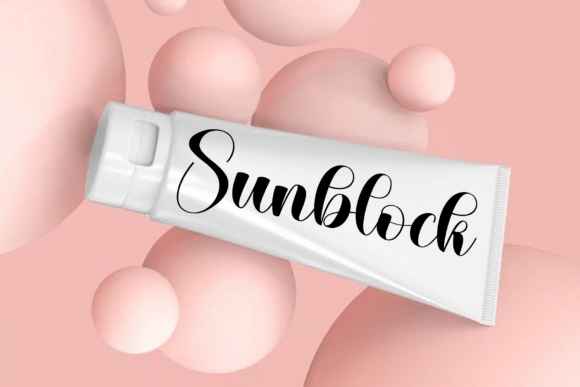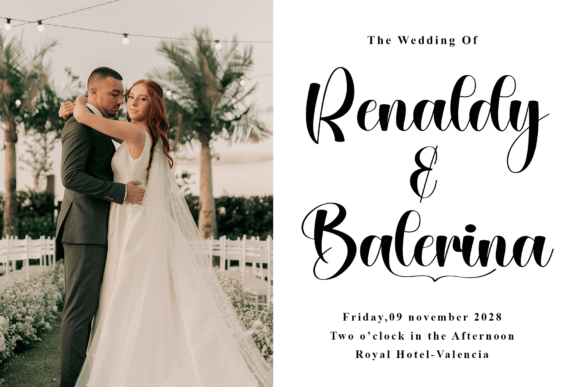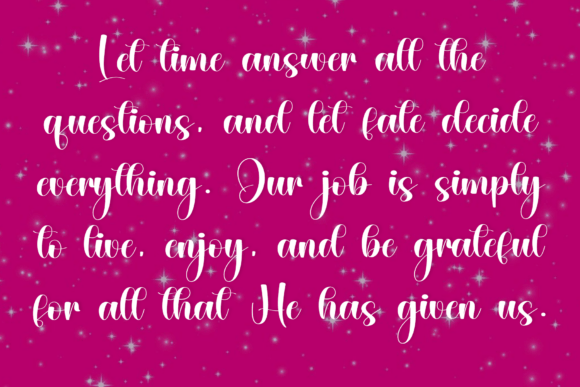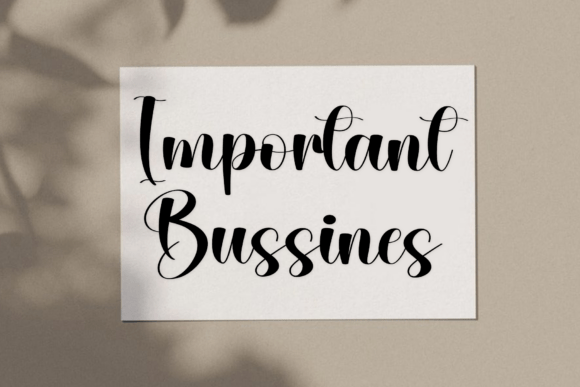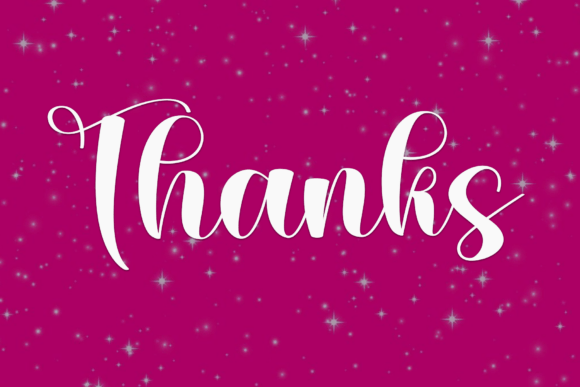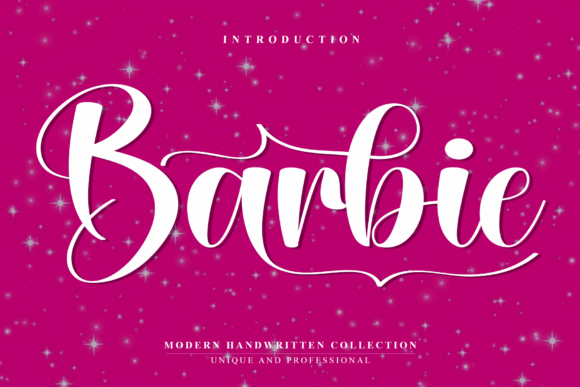
Discover the Elegance of Barbie Font: Elevate Your Designs with Sophistication
In the world of typography, few fonts capture the essence of charm and sophistication as beautifully as the Barbie font. This modern script is not just a typeface; it’s an expression of elegance, designed to bring a touch of luxury and refinement to any design project. Whether you’re a seasoned designer or a crafty DIY enthusiast, the Barbie font is sure to inspire your creativity and elevate your work to new heights.
The Characteristics of Barbie Font
So, what makes the Barbie font so special? Let’s take a closer look at its distinctive features:
- Flowing Curves and Elegant Letterforms: The Barbie font boasts tall, expressive ascenders and generous loops that give it a dynamic, yet graceful appearance. Each letter is carefully crafted to ensure a smooth flow, making it perfect for creating beautiful, cohesive text.
- Smooth, Fluid Connections: One of the hallmarks of the Barbie font is its fluid connections. The way each letter flows into the next creates a sense of movement and harmony, adding to its overall elegance.
- High Contrast: The high contrast between the thick downstrokes and thin upstrokes in the Barbie font enhances its visual rhythm, making it both decorative and legible. This contrast adds depth and dimension to the text, catching the eye and holding attention.
Celebratory Handwriting with a Refined Twist
The Barbie font is often described as a form of celebratory handwriting, but with a refined twist. It captures the joy and spontaneity of handwritten text, while also bringing a level of sophistication that’s hard to find in more traditional scripts. This makes it an ideal choice for a wide range of design projects, from wedding invitations and event branding to packaging and advertising.
Uses for Barbie Font
The versatility of the Barbie font is one of its most appealing qualities. Here are just a few ideas for how you can use it in your designs:
- Wedding and Event Design: The elegant, refined nature of the Barbie font makes it perfect for wedding invitations, save-the-date cards, and other event-related materials.
- Branding and Packaging: Add a touch of luxury to your brand with the Barbie font. It’s ideal for high-end packaging, product labels, and company logos.
- Advertising and Marketing: The Barbie font’s decorative yet legible design makes it a great choice for advertising and marketing materials, such as brochures, flyers, and social media graphics.
- DIY Crafts: If you’re a crafter, you’ll love the Barbie font for your DIY projects. Use it to create beautiful signs, banners, and other decorative items for your home or as gifts.
Tips for Using Barbie Font Effectively
To get the most out of the Barbie font, here are a few tips to keep in mind:
- Pair it with Simple Backgrounds: The Barbie font is a statement maker, so pair it with simple backgrounds to let it shine.
- Experiment with Colors: Don’t be afraid to experiment with different colors to find the perfect match for your design.
- Use it Sparingly: While the Barbie font is beautiful, it can be overwhelming if used too much. Use it sparingly to create emphasis and add elegance to your design.
The Barbie font is a stunning addition to any designer’s toolkit. Its elegant letterforms, flowing curves, and high contrast make it the perfect choice for adding a touch of sophistication to any project. Whether you’re designing for a client or working on a personal project, the Barbie font is sure to inspire your creativity and help you create something truly special.
So why not give the Barbie font a try? With its versatility, elegance, and charm, it’s sure to become a favorite in your design arsenal.